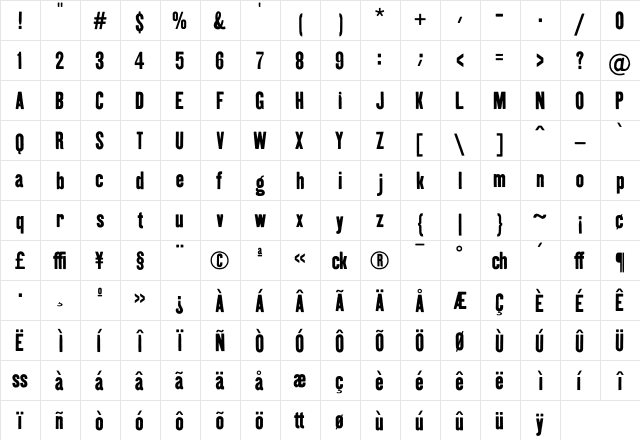
Kipp No1 Font Preview
Kipp No1
Kipp No1 Font Details
Design Context for Kipp Typeface
Kipp takes a measured approach to typography — its balanced proportions and neutral character make it a reliable workhorse for both digital and print work.